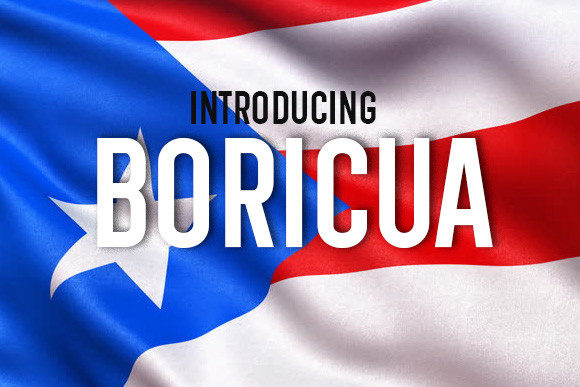
Journey into the realm of typography with the Boricua font, a sans serif masterpiece crafted by the visionary vladimirnikolic. This font exudes simplicity and sharpness, leaving an indelible mark on your designs. Its clean lines and balanced proportions lend an air of sophistication, while its subtle curves infuse a touch of warmth and approachability.
With Boricua, your headlines will command attention, captivating your audience from the very first glance. Its bold presence ensures that your messages stand out, leaving a lasting impression on the minds of your readers. Whether you're creating posters, branding materials, or website designs, Boricua has the power to elevate your visual communication to new heights.
Unlock the endless possibilities of Boricua and unleash your creativity. Explore the myriad ways in which this versatile font can transform your designs into works of art. Experiment with different colors and backgrounds to discover the perfect harmony that resonates with your unique style.
Boricua is more than just a font; it's an invitation to embark on a journey of self-expression. Embrace the dynamic nature of this sans serif marvel and let your imagination soar. Let Boricua be your muse, inspiring you to create designs that captivate, engage, and leave an enduring legacy.